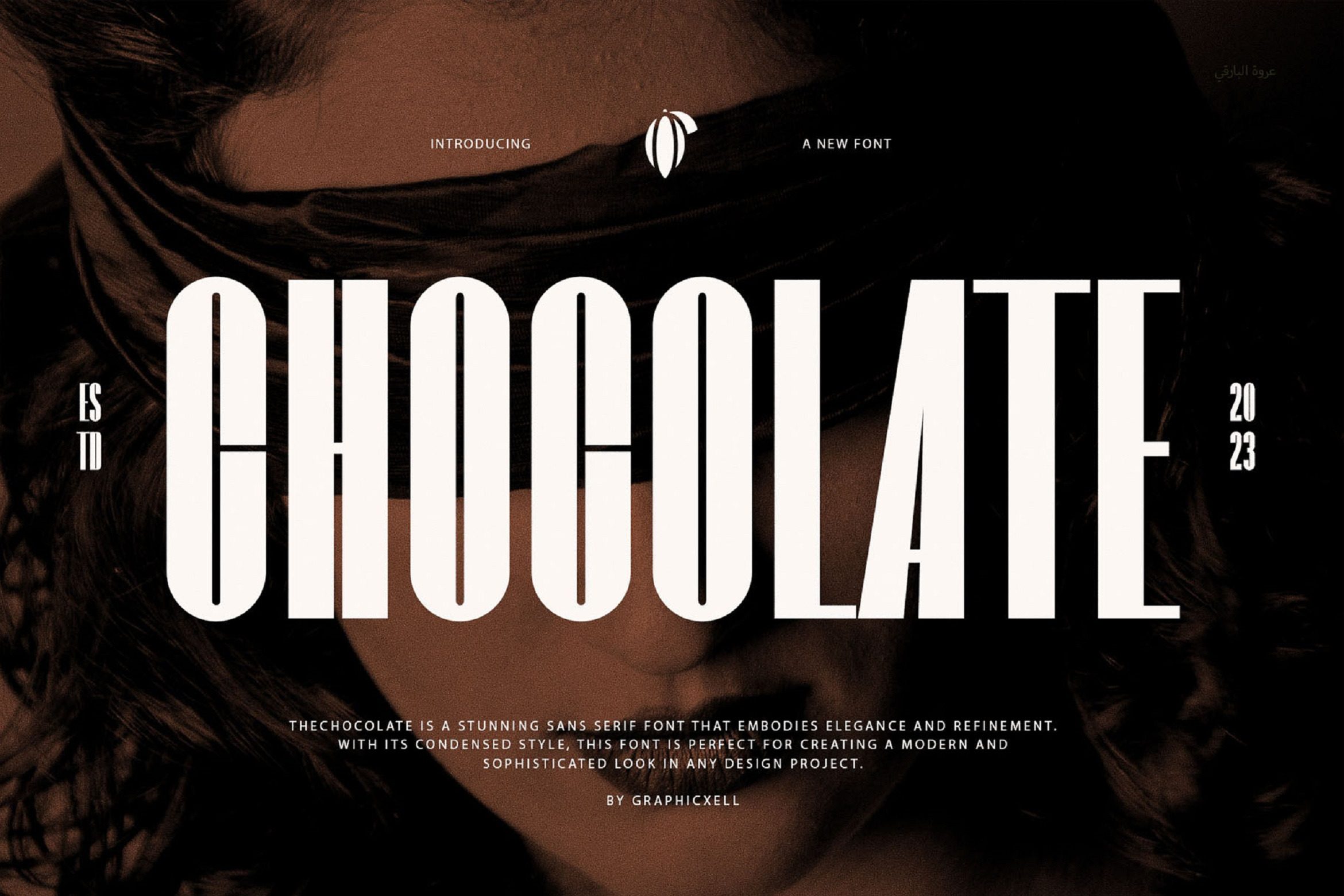
Chocolate Elegant Sans Serif Font
Chocolate Elegant Sans Serif Font is a new font that comes with refinement. This font looks very elegant because of its condensed style. It is identical to the thickness, making it best for a modern look. In addition, it also promotes close distance that creates a sophisticated impression. This sans serif has a simple, clean, and strong letterform. That’s what makes this font versatile in use, especially in the digital world. What makes it valuable is the letterforms that are not only easy to read but also clear and simple. So, it is reasonable that the Chocolate Elegant Sans Serif Font is best for product designs. Since this font can optimize your product design, it is perfect for branding. The firm and solid letterforms are its characteristics. This sans serif font will also be suitable for other graphic design projects. Now, it’s time to try this font and elevate your own design!